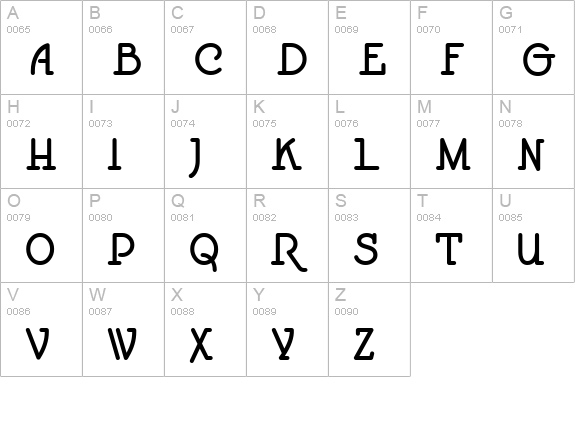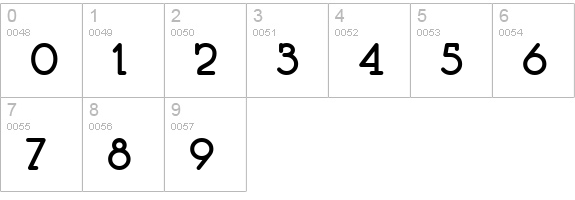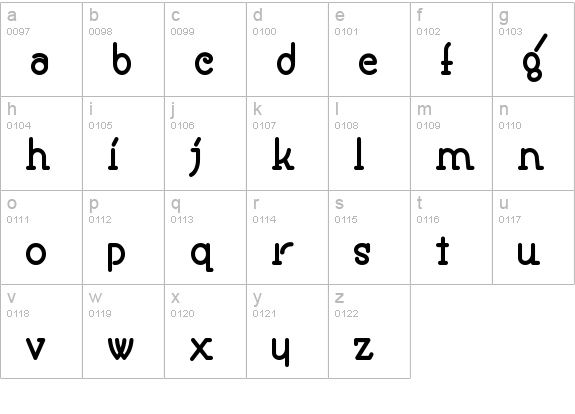
Speedball No1 NF is a captivating and versatile font that exudes an undeniable charm. With its bold and striking letterforms, this typeface is sure to grab attention and leave a lasting impression. Perfectly balancing a sense of modernity with a touch of nostalgia, Speedball No1 NF brings a unique flair to any design project. This font is not only visually appealing but also highly functional, making it suitable for a wide range of applications. Whether you're designing a logo, creating eye-catching headlines, or crafting beautiful typography for your website, Speedball No1 NF has got you covered. One of the best things about Speedball No1 NF is that it is available for free download at FontsMarket.com. This means that you can enjoy the benefits of this incredible font without breaking the bank. So why wait? Get your hands on Speedball No1 NF today and elevate your designs to a whole new level of excellence.